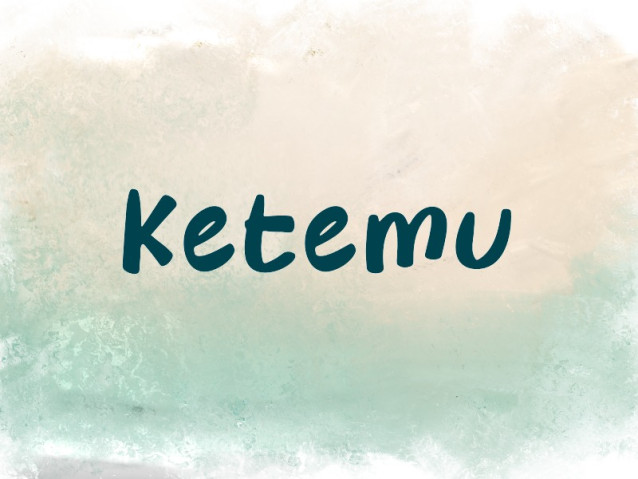
Ketemu Font
Ketemu Font is a simple and modern display font suitable for quotes, logos, headings, titles, and many more. Use it on any of your creative projects, and your designs will become outstanding!